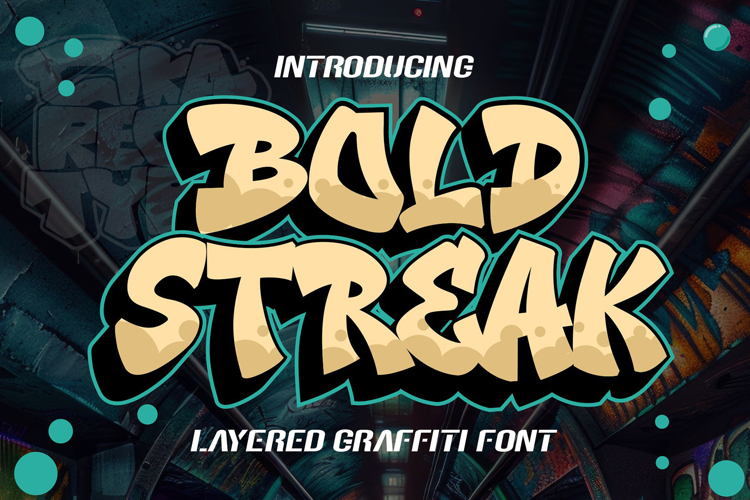
Bold Streak Layered Graffiti Font
🔥 Bold Streak – The Ultimate Layered Graffiti Font 🎨
Bring the raw energy of street art to your designs with Bold Streak, a layered graffiti font that captures the essence of urban culture! This font is designed with bold strokes, expressive textures, and a rebellious edge, which is perfect for street-style branding, hip-hop posters, album covers, event flyers, and more.
With its dynamic layering system, you can create authentic graffiti effects, adding depth, shadow, and dimension to your artwork. Whether you’re designing for music, fashion, gaming, or underground events, Bold Streak delivers a powerful and eye-catching look that demands attention.
💥 Why Choose Bold Streak?
✅ Authentic Graffiti Style – Inspired by real street tags and murals.
✅ Layered for Depth – Create stunning 3D graffiti effects effortlessly.
✅ Bold & Expressive – Raw, rebellious strokes that pop off the canvas.
✅ Versatile & Dynamic – Ideal for posters, branding, and digital art.
🎨 Unleash Your Creativity with Bold Streak! 🎨
💡 Perfect for:
🎤 Hip-Hop & Music Branding
📢 Event Flyers & Street Posters
🎮 Gaming & Esports Graphics
🖌 Merchandise & Custom Prints
🎬 Movie Titles & Urban Designs